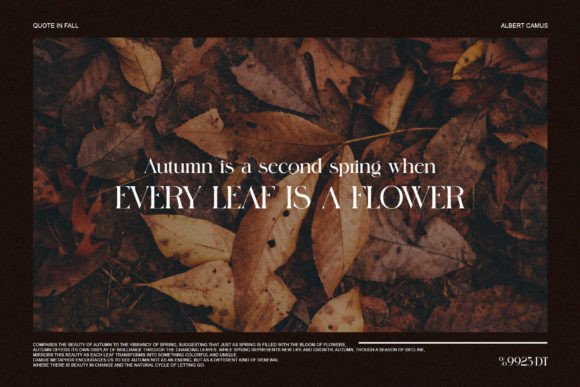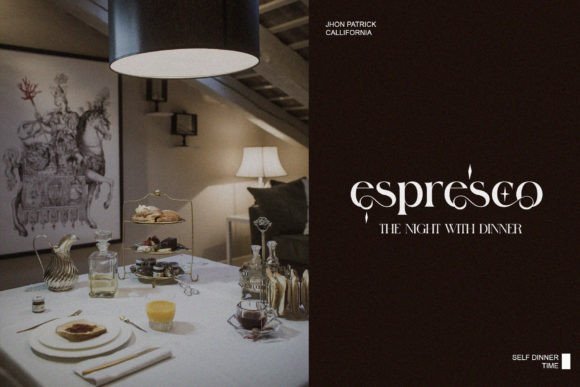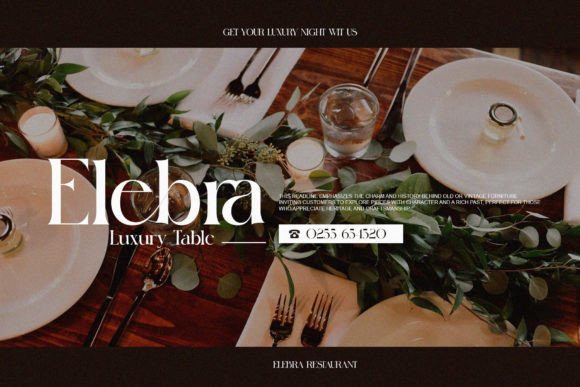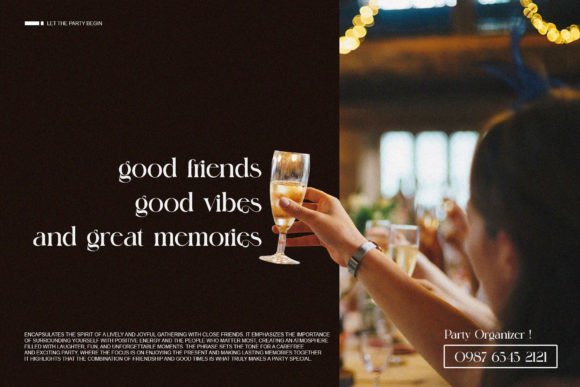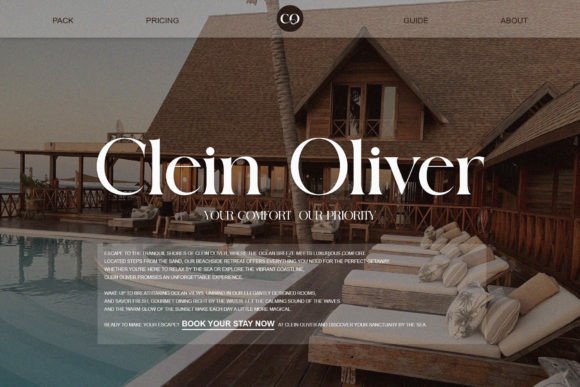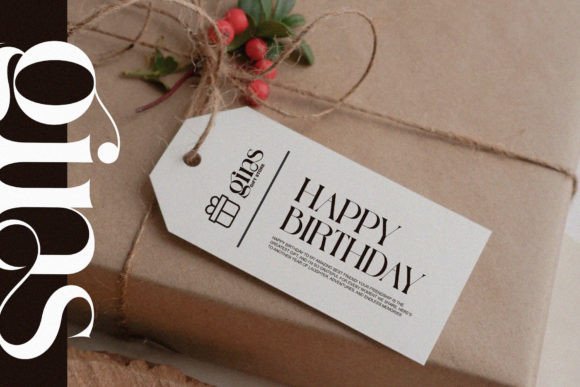
Introduction to Milcora Font
Have you ever found yourself in the midst of a creative project, searching for the perfect font to elevate your design? The right typography can make all the difference, and for those seeking a touch of sophistication and elegance, the Milcora Font is an exceptional choice.
As a modern serif font, Milcora exudes the charm of fresh blooms and timeless refinement, making it perfect for upscale designs that require a high-quality aesthetic. Whether you’re working on a floral-inspired project, a fashion campaign, or high-end branding, Milcora’s bold yet refined ligatures will set your design apart from the rest.
What makes Milcora truly valuable for designers is its ability to bring a sense of refinement and natural beauty to any project. With its soft and intentional presence, this font is sure to elevate your designs and leave a lasting impression.
Key Features of Milcora Font
- High-quality design resource ideal for creative projects, offering a unique and elegant style.
- Unique characteristics include intricate details and ornate flourishes, setting it apart from other fonts in its category.
Honest Review: Milcora Font
As a designer, I’m always on the lookout for high-quality design resources that can elevate my creative projects. Recently, I came across the Milcora Font, and I’m excited to share my thoughts on this free download.
What works well: ✨ The Milcora Font boasts a beautiful, elegant design that’s perfect for creating a professional and sophisticated look. It’s also incredibly versatile, making it suitable for a wide range of creative projects, from branding and marketing materials to editorial and publishing work.
- ✨ High-quality design that’s perfect for professional projects
- ✨ Versatile and suitable for various creative projects
However, I did encounter some limitations: ⚠️ The font doesn’t support transparent backgrounds, which can be a bit restrictive for designers who need to create graphics with transparent elements.
Overall, I’m impressed with the Milcora Font, and I think it’s a valuable addition to any designer’s toolkit. While it may not be perfect, its high-quality design and versatility make it a great choice for a wide range of creative projects.
Milcora Font
Tips for Getting the Most Out of Milcora Font
For the best results, use Milcora Font in conjunction with a high-quality design resource. Experiment with different font sizes, colors, and styles to create a unique look. Consider using the font’s transparent background feature to create a design element that stands out from the rest.
Milcora Font is perfect for a variety of creative projects, including logos, business cards, and marketing materials. Its high-quality design and transparent background feature make it an ideal choice for designers looking for a free download that can add a touch of elegance to any project.